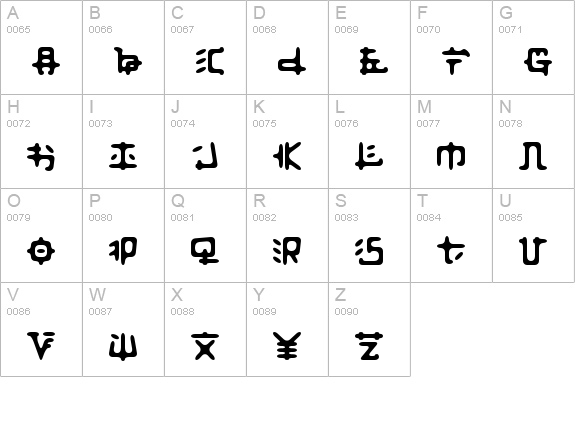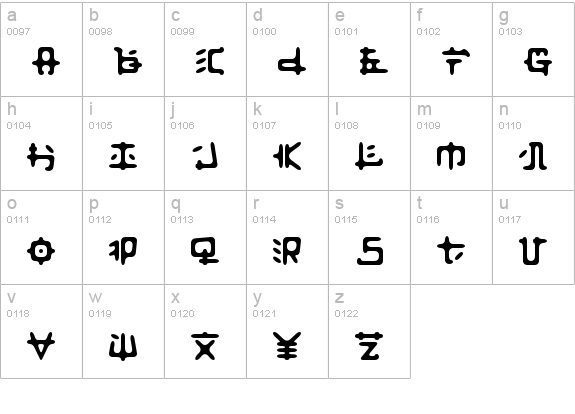
Fusaka Std Font Details
Fusaka Std is a modern and versatile typeface that exudes elegance and sophistication. With its clean lines and balanced proportions, this font is perfect for a wide range of design projects, from branding to editorial design. The sleek and contemporary look of Fusaka Std makes it a popular choice for creating striking headlines and eye-catching signage. One of the best things about Fusaka Std is that it is available for free download at FontsMarket.com. This means that you can easily access this high-quality font without any cost, making it a valuable addition to your font library. Whether you're a professional designer or a hobbyist looking to elevate your projects, Fusaka Std is a fantastic option that offers both style and accessibility. Overall, Fusaka Std is a fantastic font that combines modern aesthetics with practicality. Its versatility and availability for free download make it a must-have for anyone looking to add a touch of sophistication to their designs. Experience the beauty of Fusaka Std today by downloading it from FontsMarket.com and start creating stunning visuals that stand out from the crowd.